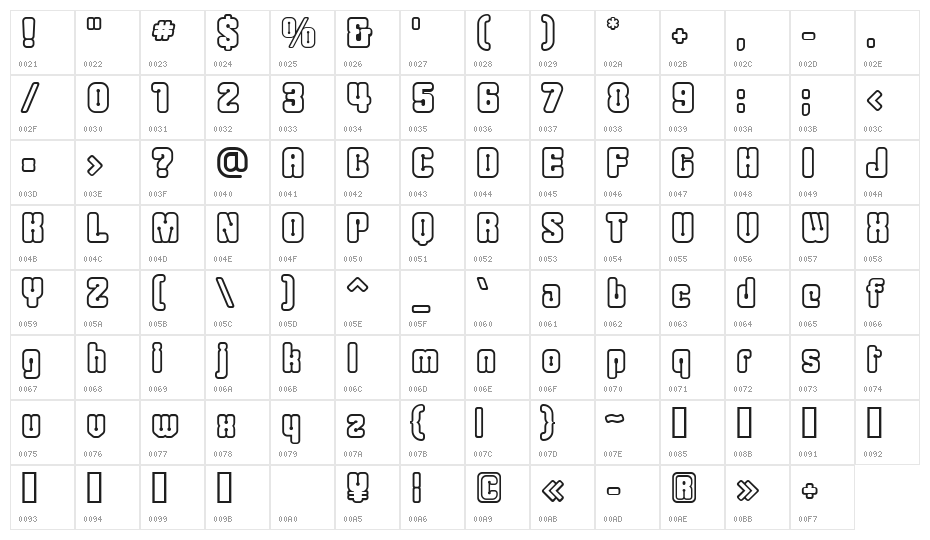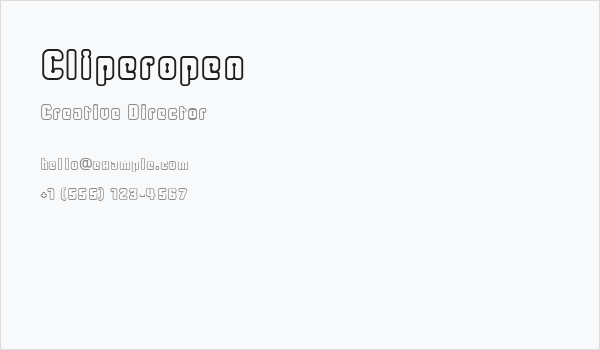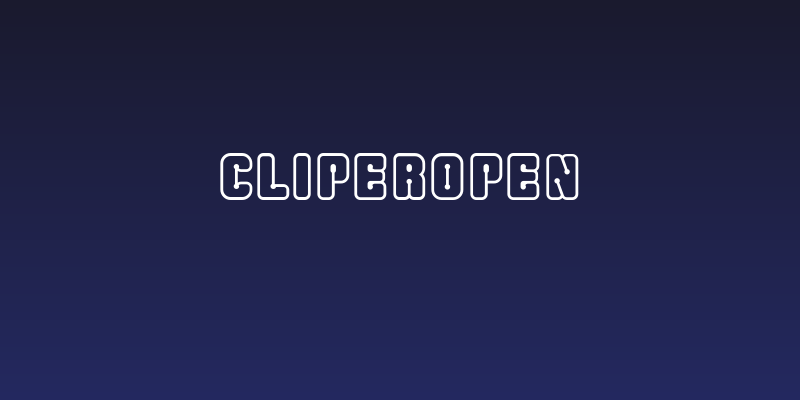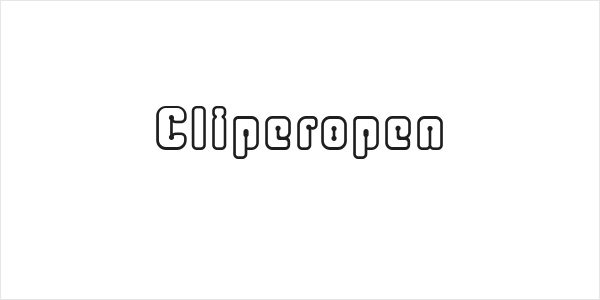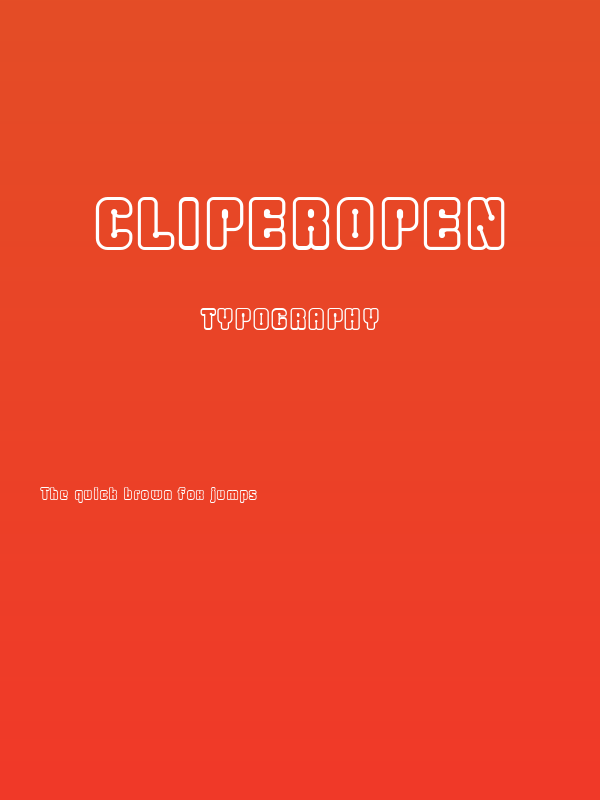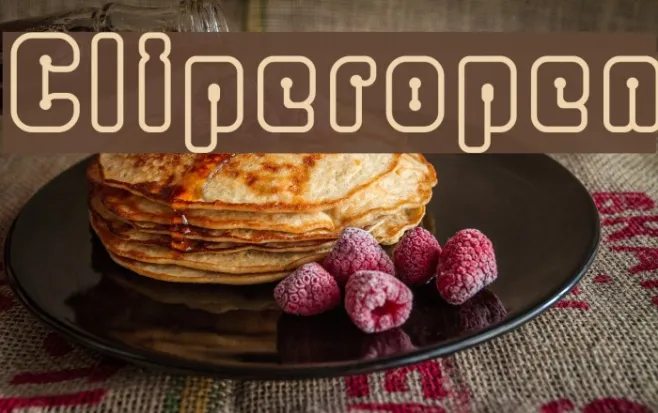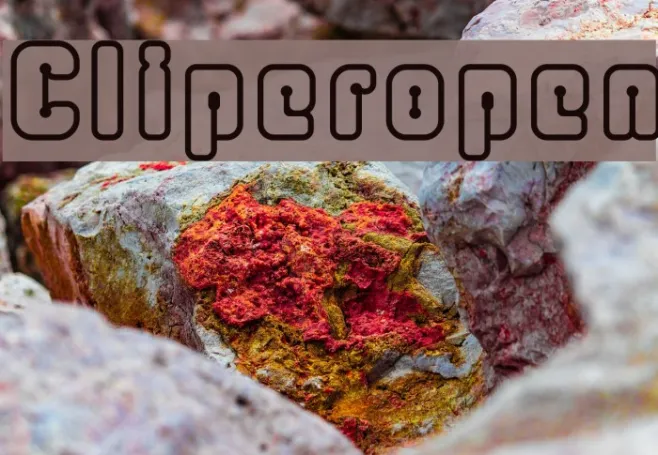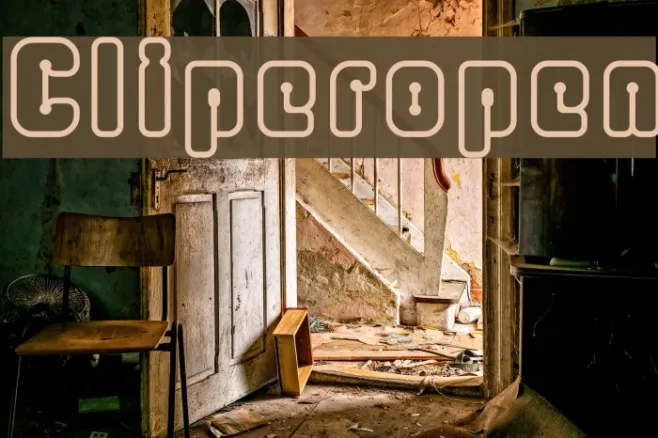
Cliperopen Font
Cliperopen Description
This font features a bold, outlined style with a playful and modern aesthetic. Each character is enclosed within a thick border, creating a distinct and eye-catching appearance. The letters are rounded and uniform, giving a cohesive look across both uppercase and lowercase alphabets. The numbers and special characters maintain the same outlined style, ensuring consistency throughout. This font's unique design makes it suitable for creative and informal applications, where a strong visual impact is desired.
| Proposed Projects | Ideal for posters, logos, children's books, and playful branding projects. |